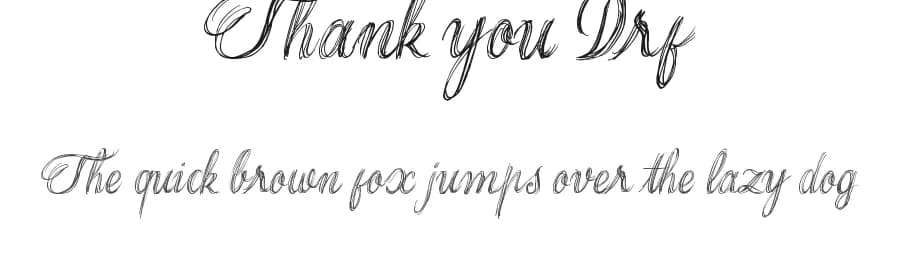
About Thank you Drf Font
Thank you Drf Specifications
| Font Family | Thank you Drf |
| Full Name | Thank you Drf |
| Designer | Huong Le Thi Thu |
Thank you Drf Font is a script font that shines as a display or heading face. Pair it with a clean sans-serif or serif font for body text β the contrast creates a clear hierarchy while the two styles stay balanced and easy to read.
Thank you Drf Font